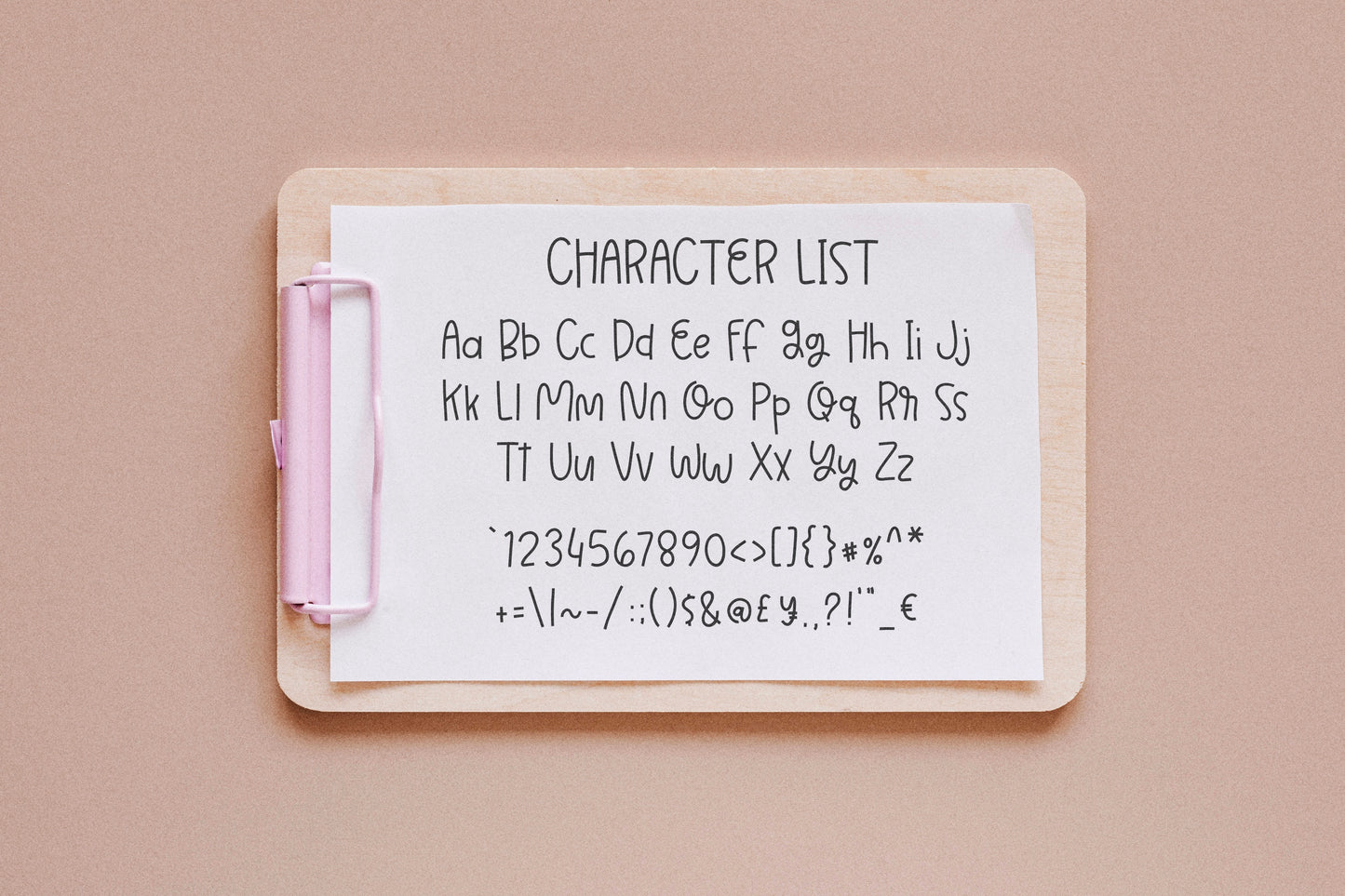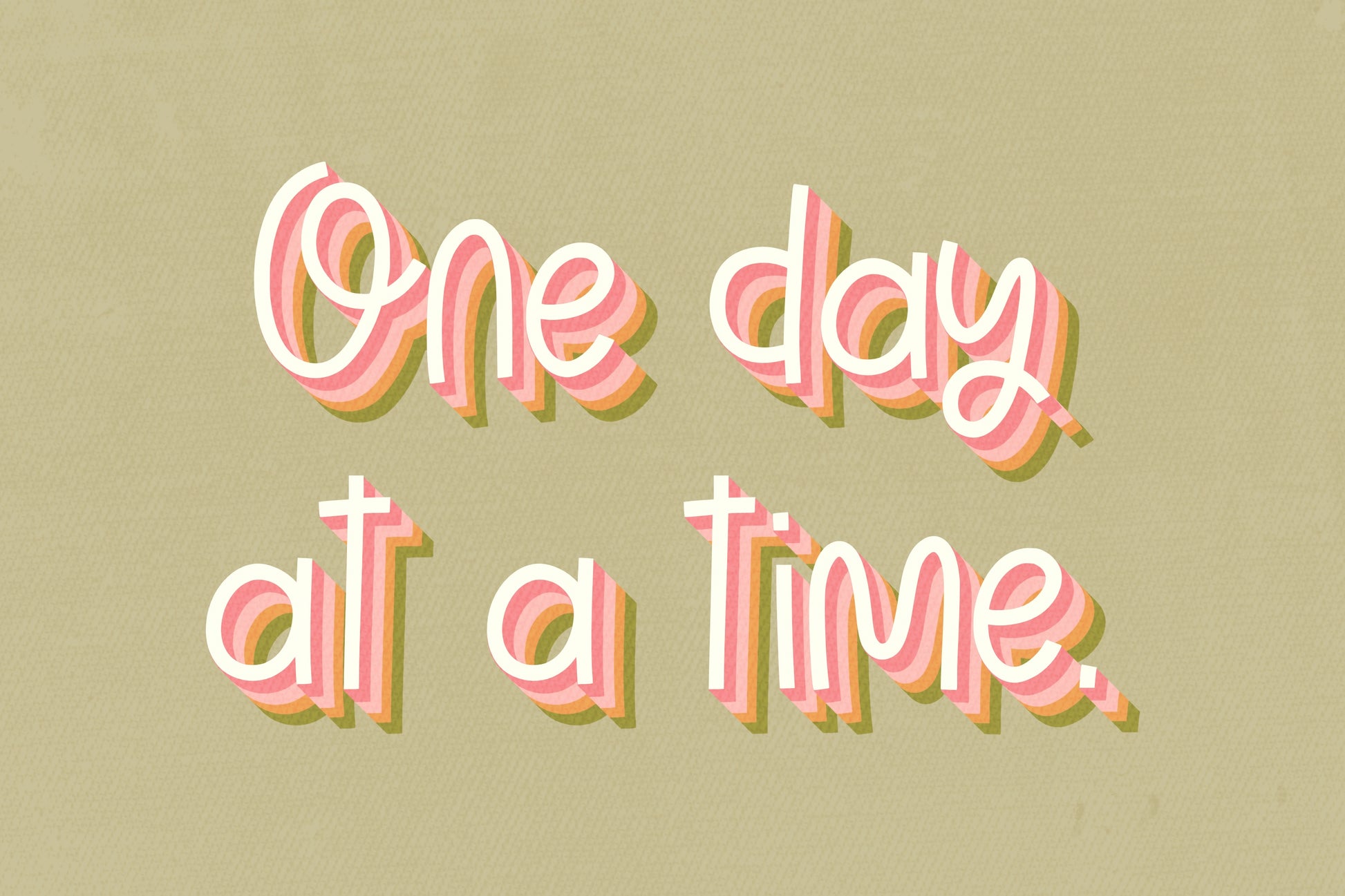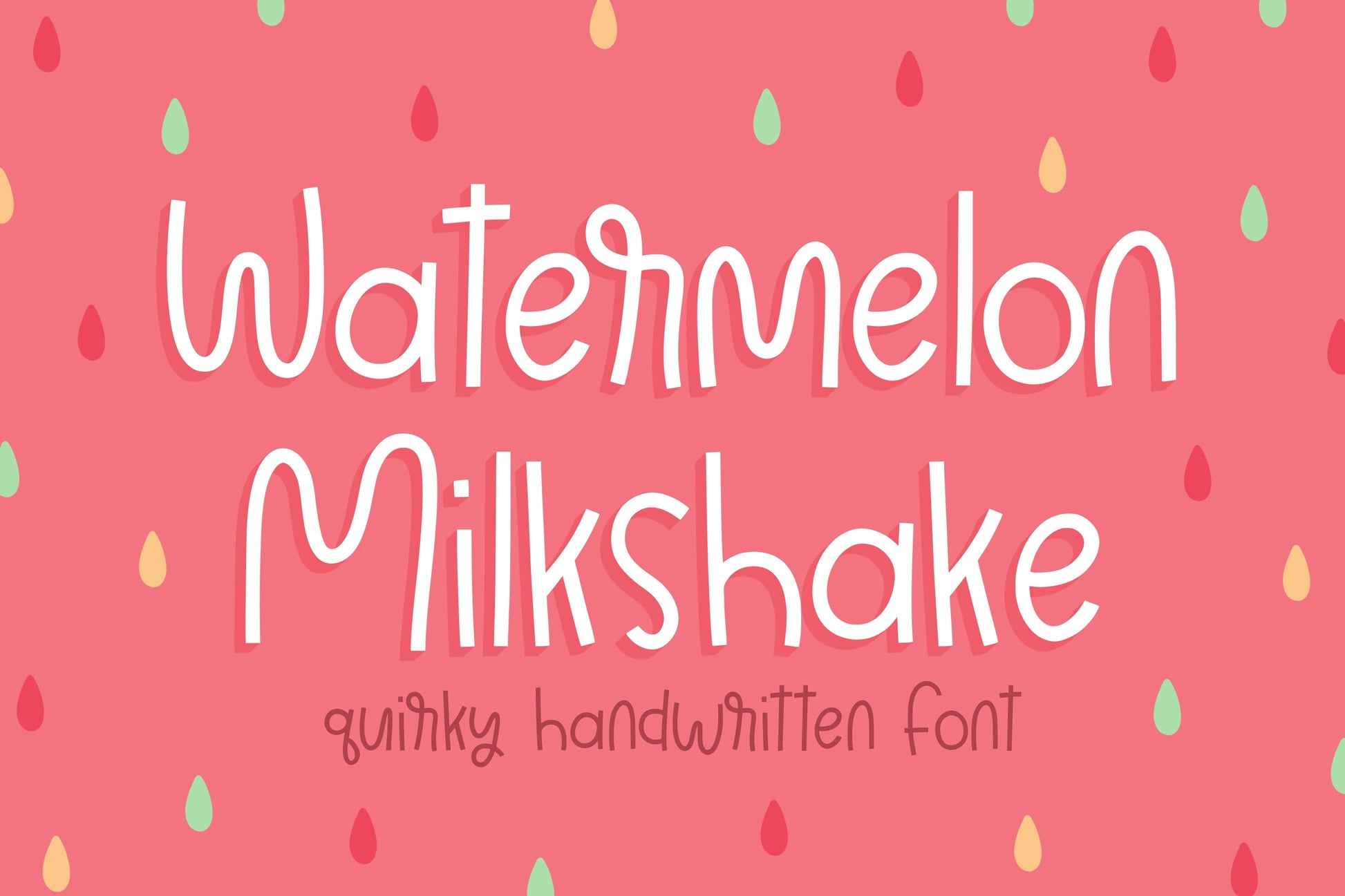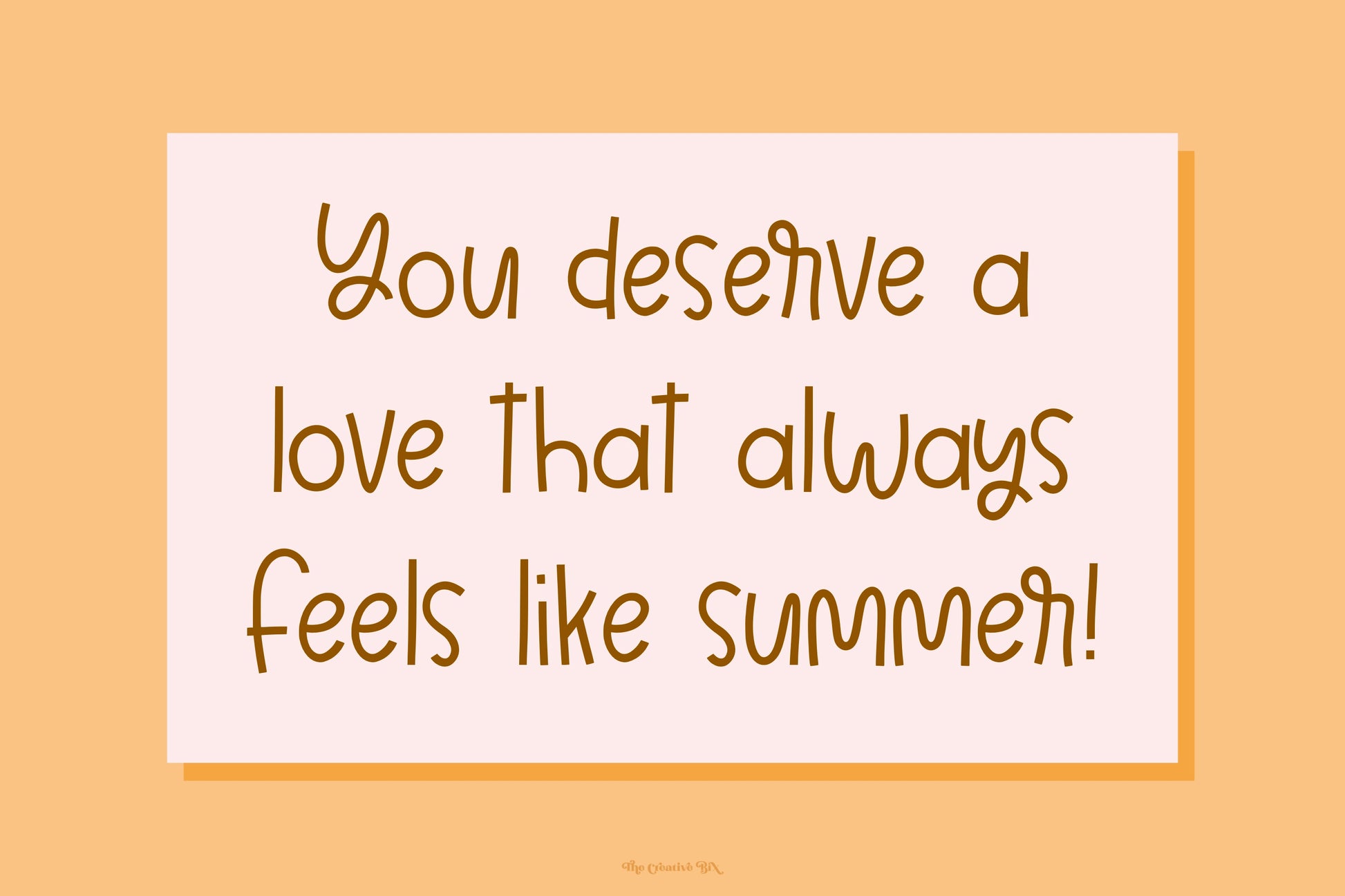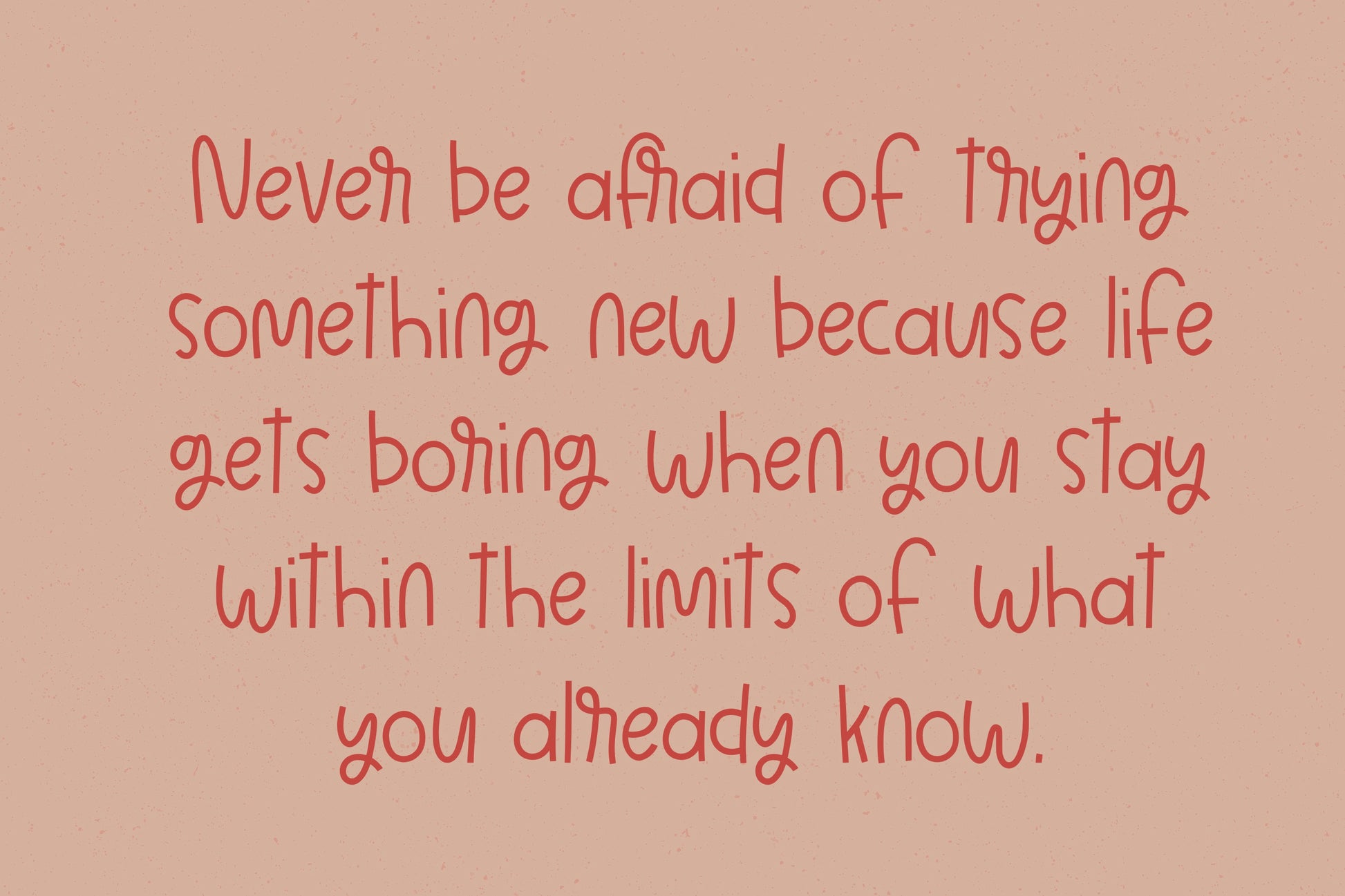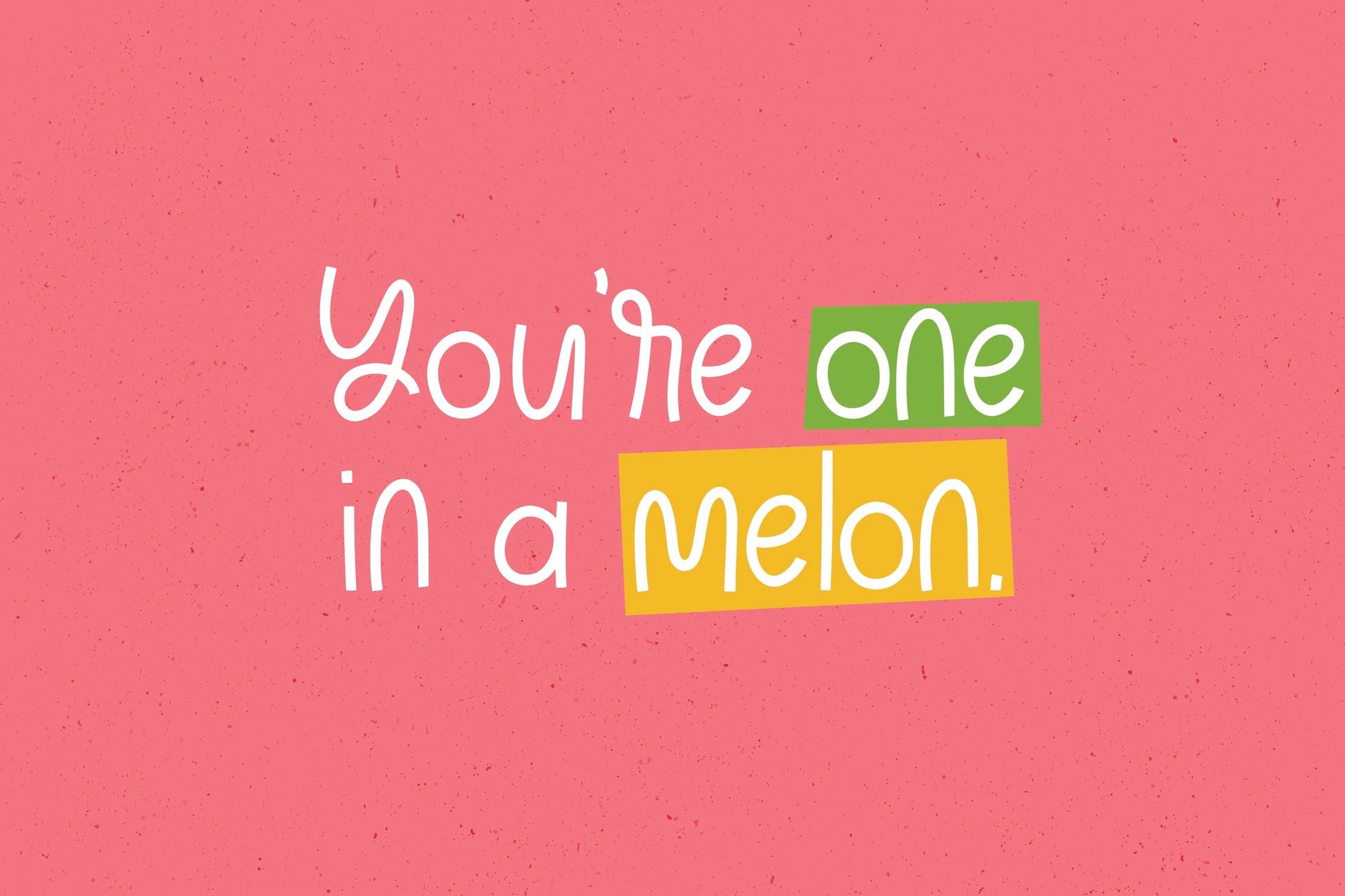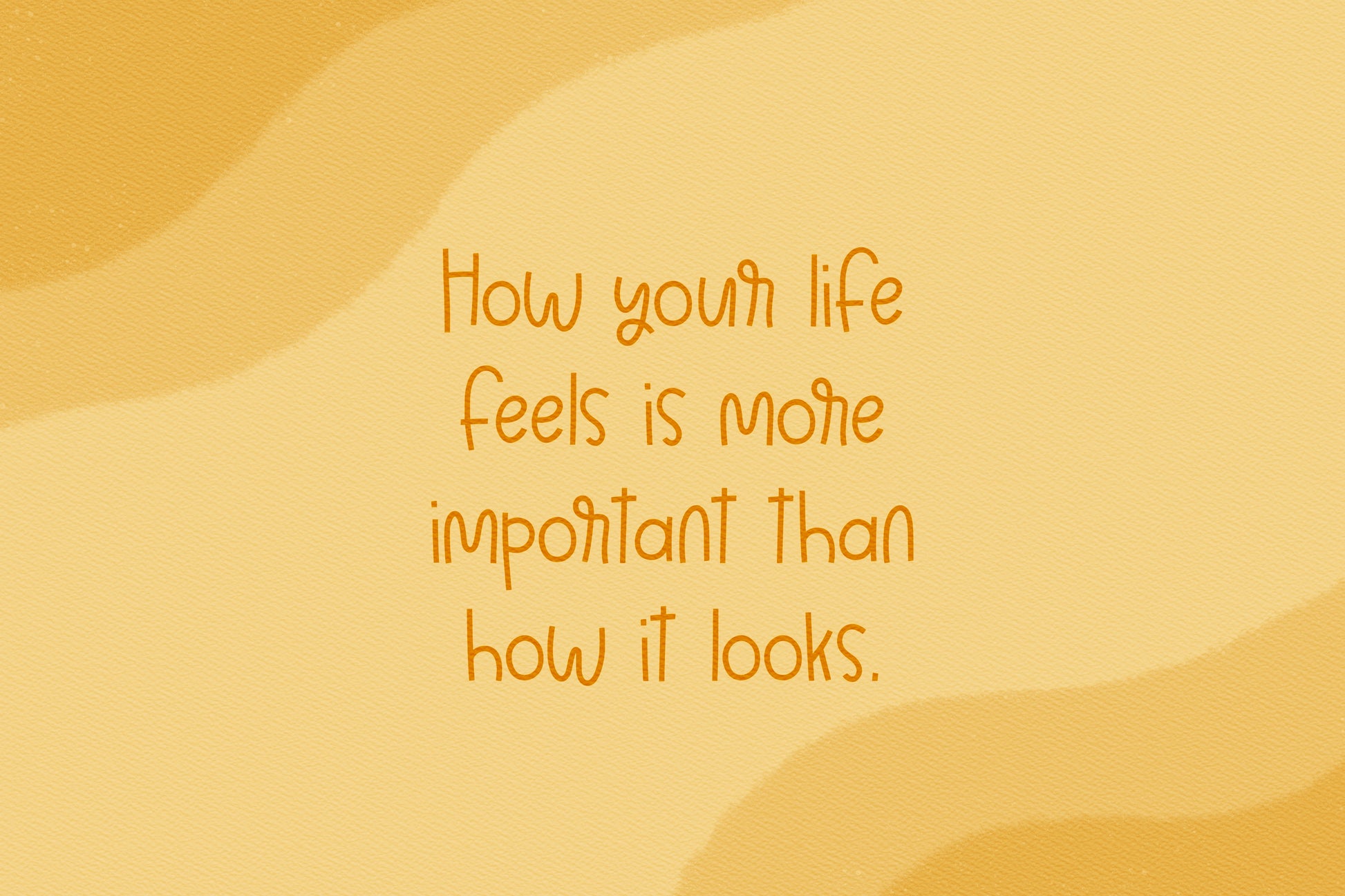
Watermelon Milkshake Handwritten Font
This is my Watermelon Milkshake handwritten/hand drawn font. This unique font will add a fun, quirky, handmade touch to your design! Perfect for magazines, stickers, notes, posters, and more!